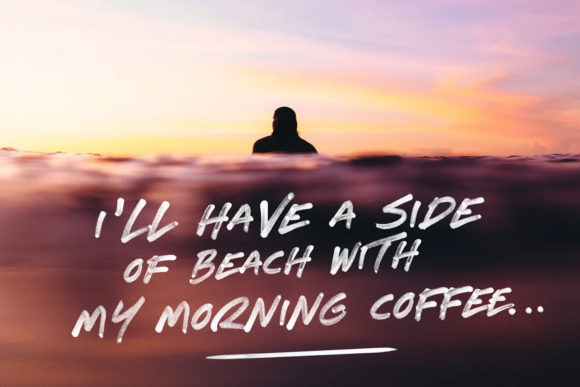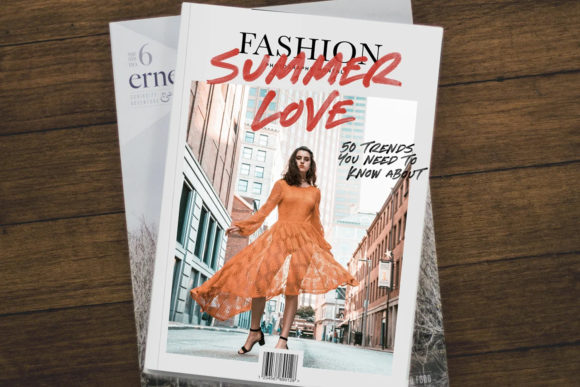
Timber Wolf Font
db-ku.com - Script & Handwritten -- Timber Wolf is a cool and laid-back, brushed handwritten font. Inspired by the urban art, this font looks trendy and authentic. It will enhance the quality of each of your posters, flyers, or print.